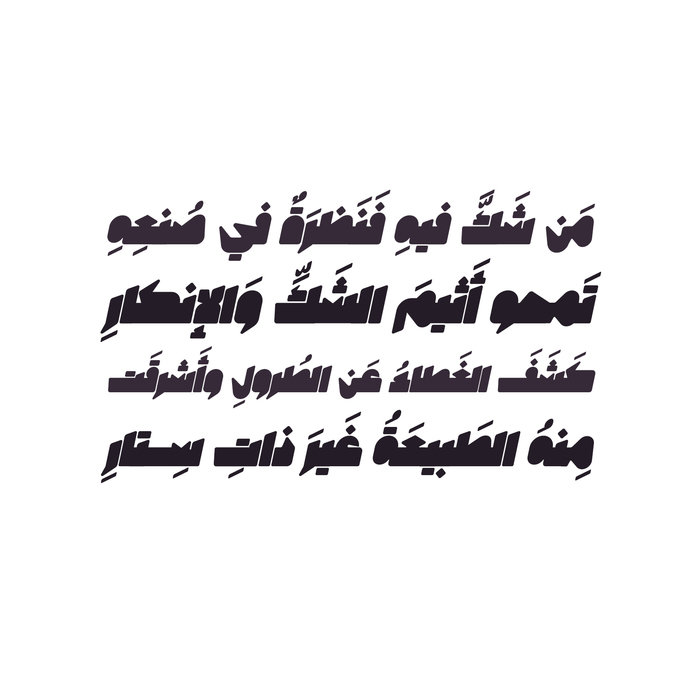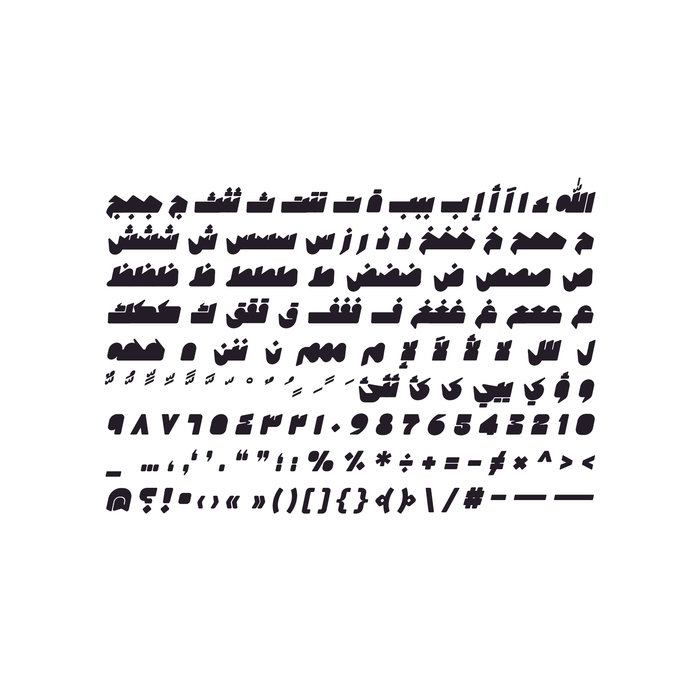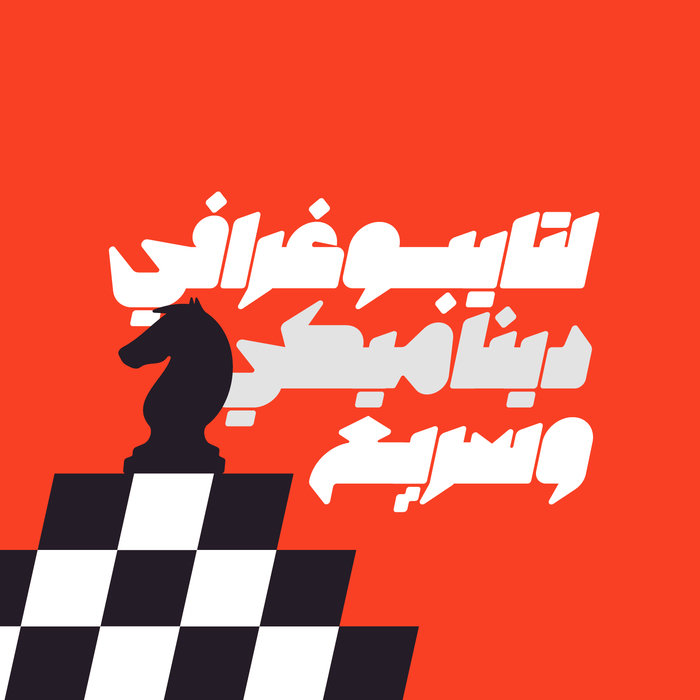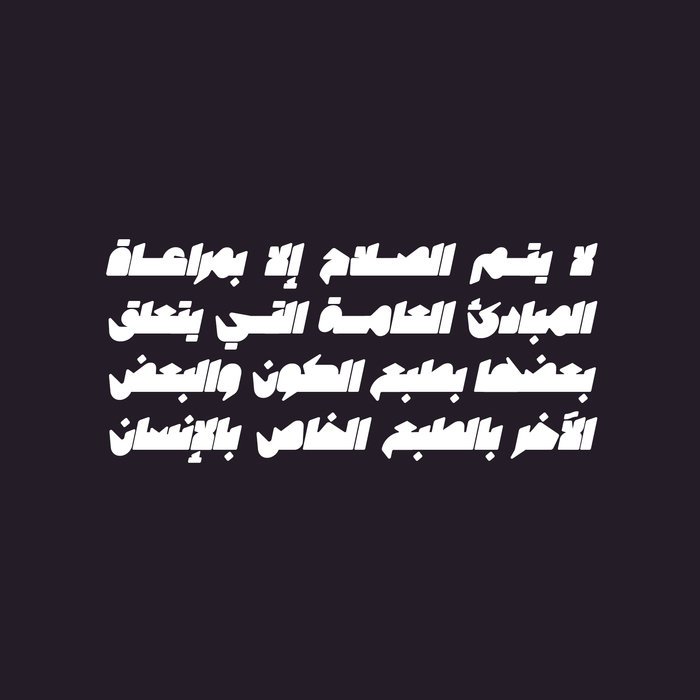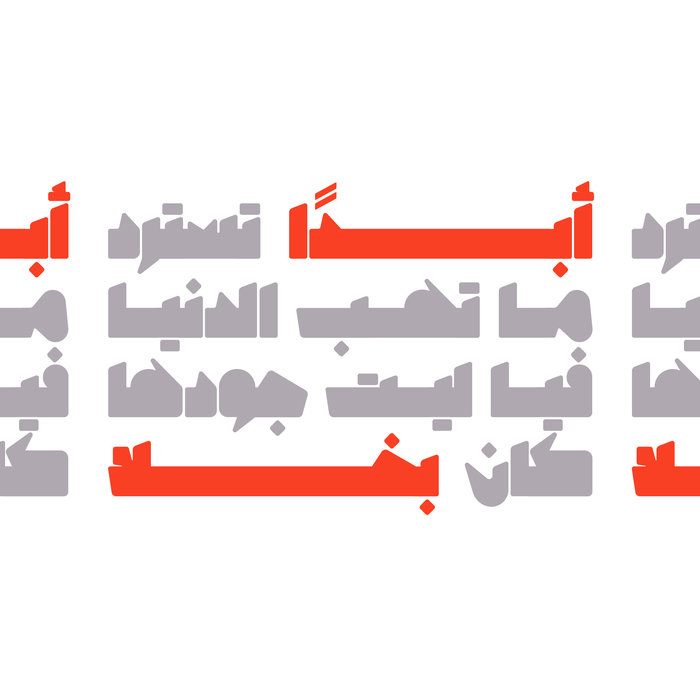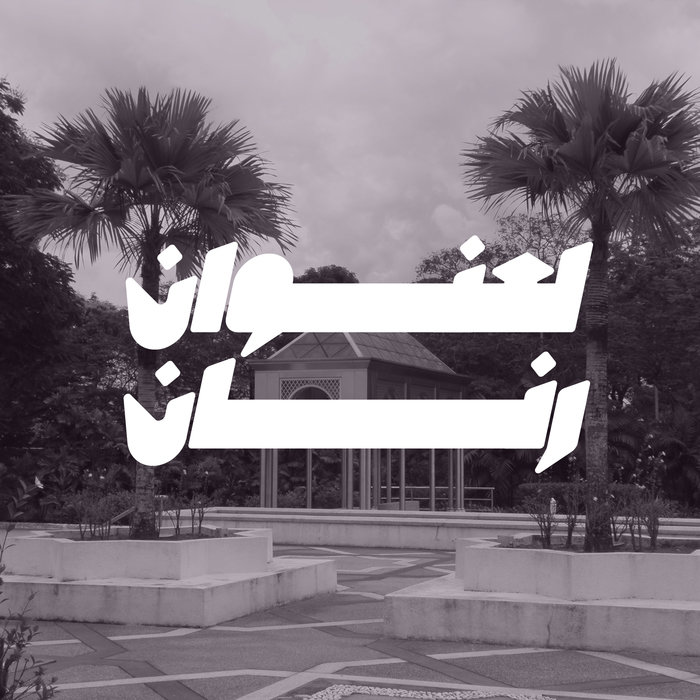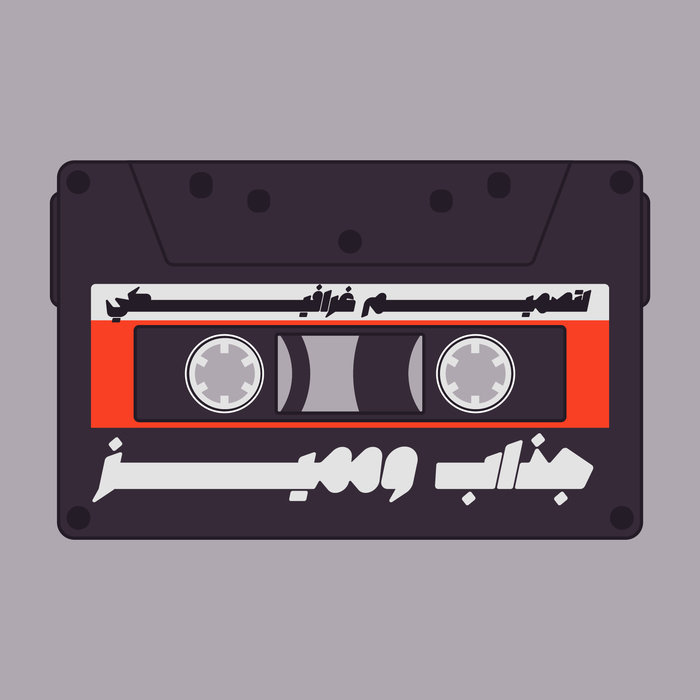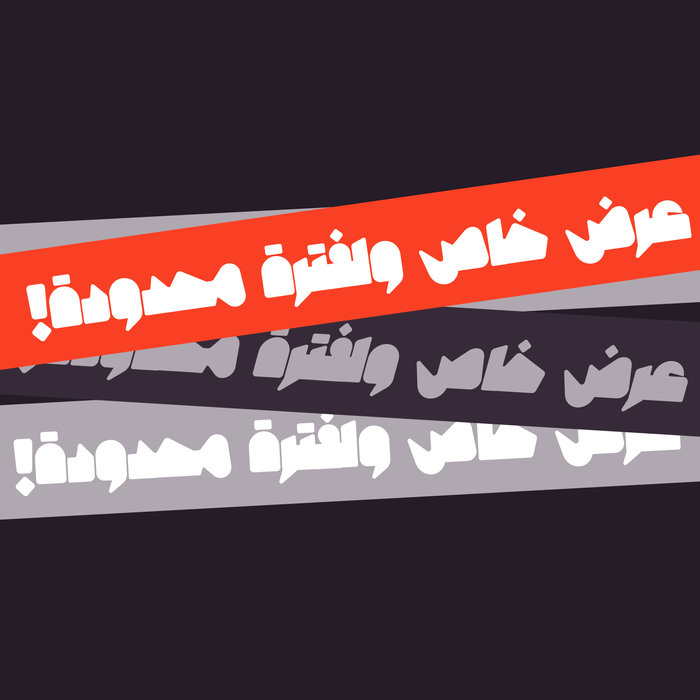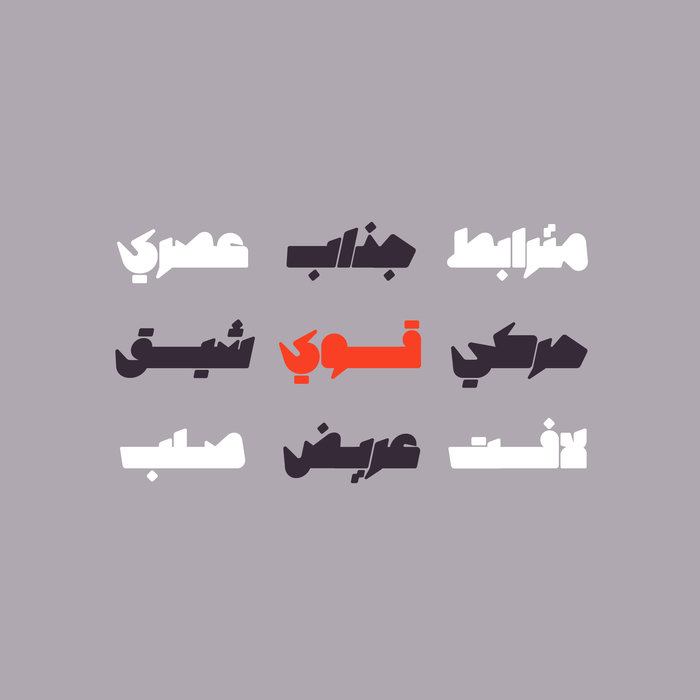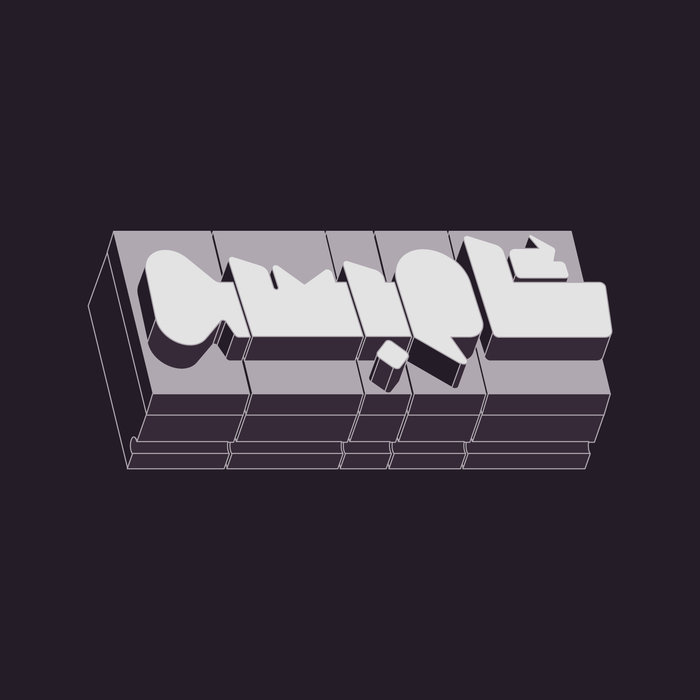
Masbook - Arabic Font
Masbook (the Arabic for 'Cast') is an Arabic display font with heavy letterform structure. The font is suitable for contemporary design projects including web, advertising, branding and print. Masbook works with Windows, Mac and mobile applications.